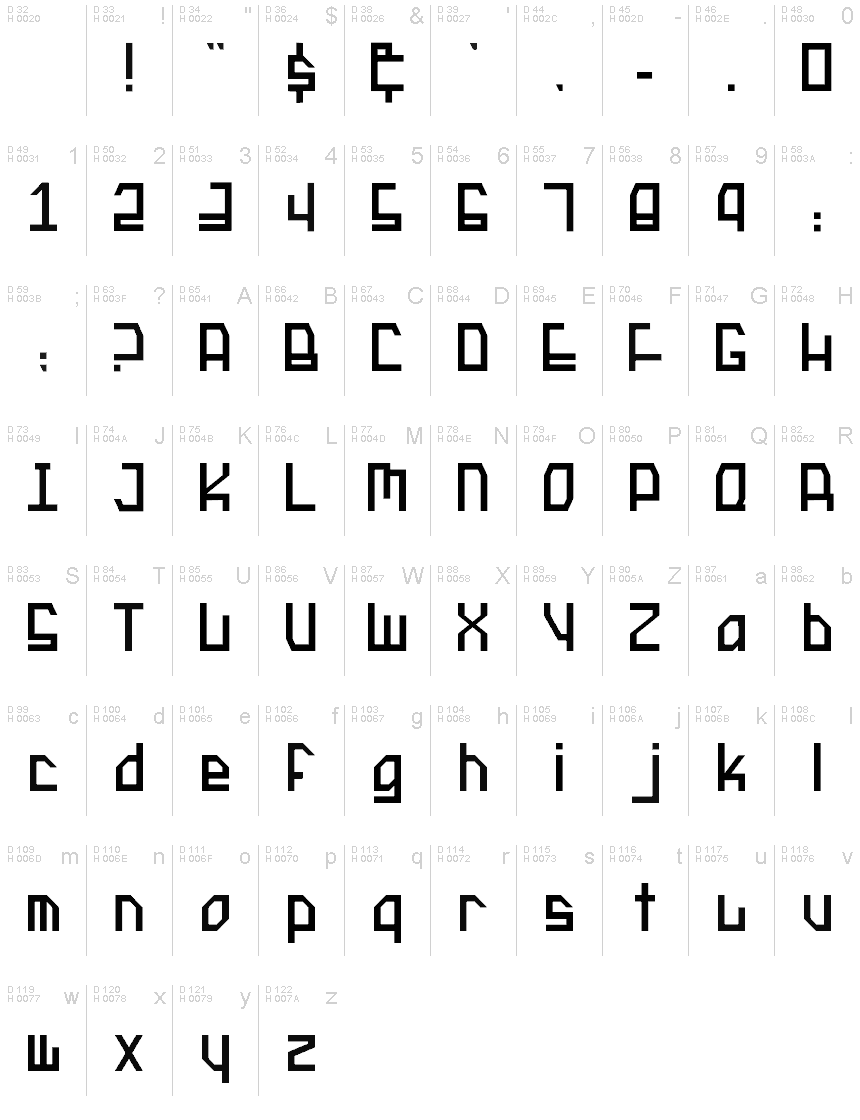
ProtocolUpdate-Regular
Protocol Update is a striking and highly distinctive font designed by Yu Lee. With its bold, angular letterforms and sleek, condensed profile, this techno-inspired display font exudes a sense of futuristic dynamism. The sharp, geometric edges and minimalist aesthetic lend it an air of technological sophistication, making it an ideal choice for digital interfaces, sci-fi-themed branding, or any design project seeking a bold, cutting-edge visual impact. The compact width further enhances its versatility, allowing it to be applied in space-constrained settings without compromising its powerful presence.
This font's versatility and strong visual identity make it a compelling option for a wide range of design applications, from digital user interfaces and motion graphics to packaging, editorial layouts, and beyond. Its techno-inspired flair and modern sensibility ensure that Protocol Update stands out and commands attention in any context.
Yu Lee